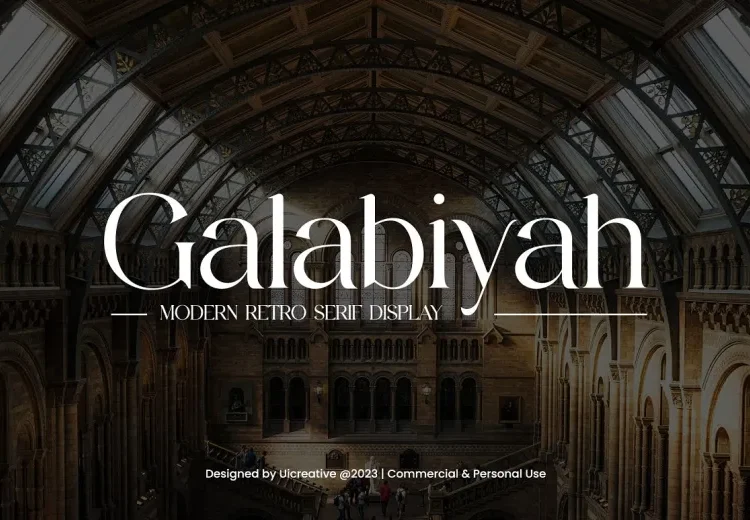
Galabiyah Font
Galabiyah is a refined and stylish retro serif font that beautifully blends elegance with modern flair. Its unique design makes it an excellent choice for a variety of creative projects, including logo design, stationery, and signature wedding stationery. With its clean lines and timeless appeal, Galabiyah adds a touch of class to typography quotes for book or magazine covers, ensuring your designs stand out.
This versatile font also shines in digital spaces, perfect for website headers, branding, and clothing packaging. Its strong presence creates a sophisticated yet approachable look, ideal for fashion-related editorial designs. The balance of feminine and masculine qualities in Galabiyah allows it to seamlessly integrate into diverse branding concepts.
Whether you’re crafting memorable event invitations or looking for a standout design element for your brand, Galabiyah delivers exceptional results. Its retro influences combined with contemporary elegance provide a distinctive look that will elevate your creative work.